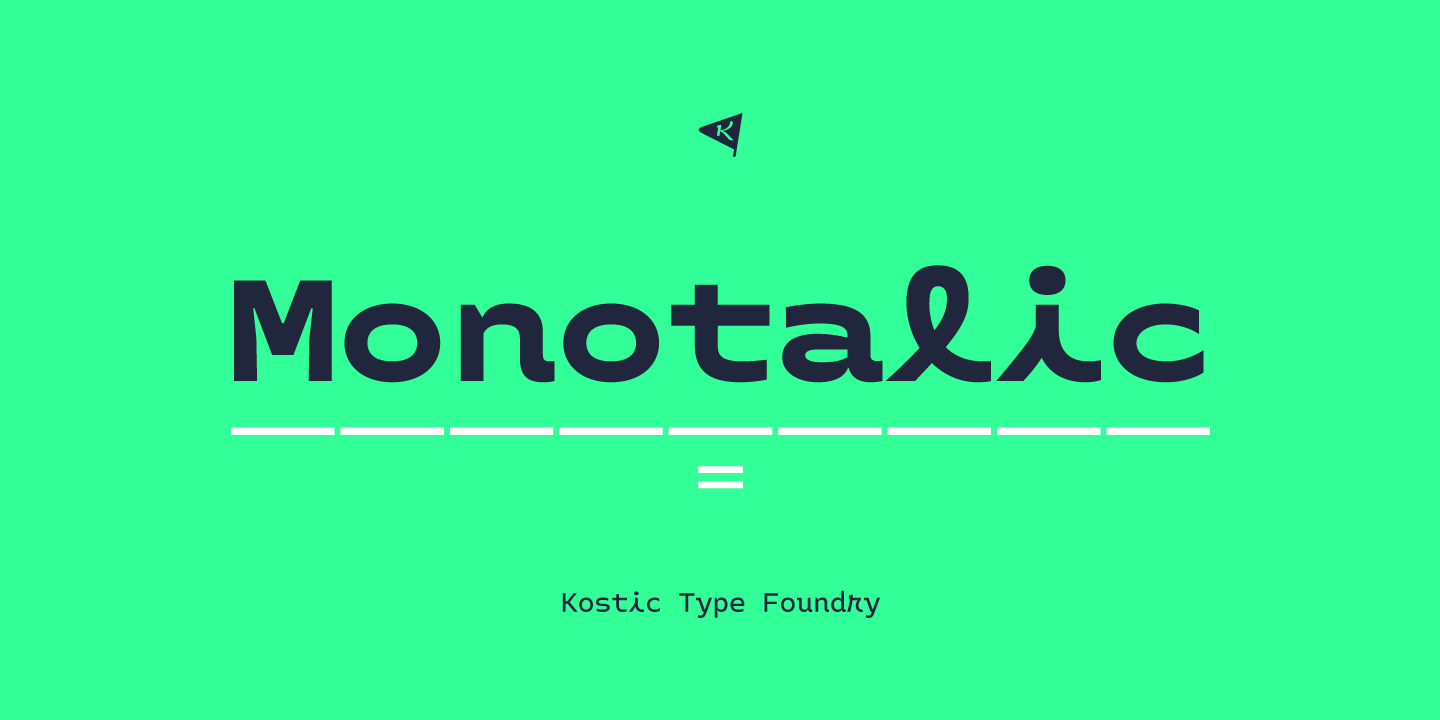
Monotalic Font is perfect for programming code editors, technical documentation, monospace text applications, developer tool interfaces, coding tutorial materials, terminal emulator displays, software development branding, systematic data layouts, precise alignment projects, and structured programming environments.
What makes Monotalic Font exciting is its systematic precision and monospace elegance that captures the essence of structured programming with uniform spacing and technical sophistication. This distinctive typeface embodies the spirit of code development with its consistently spaced character forms and programming-inspired proportions that evoke lines of perfectly aligned code flowing across terminal screens, systematic data structures organizing complex information, and the kind of precise uniformity that makes code both beautiful and functional. The font's systematic character creates an immediate impression of technical competence and the kind of structured elegance that defines excellent programming typography.
Monotalic Font family includes regular weight with systematically crafted character designs featuring uniform spacing and monospace proportions. The typeface maintains exceptional readability while showcasing its distinctive programming personality through consistently designed letterforms that reflect the systematic thinking and precise alignment that characterizes excellent code development.
Programming professionals consistently select Monotalic Font Free Download for projects requiring authentic coding appeal and monospace credibility. This remarkable typeface brings the precision of systematic programming to brand communications, combining monospace aesthetics with technical functionality to create memorable coding experiences. The systematically designed characters ensure precise positioning across all applications, making it essential for software companies, development teams, and any organization seeking to communicate the systematic precision and technical elegance that defines excellent programming through Monotalic Font Free Download.